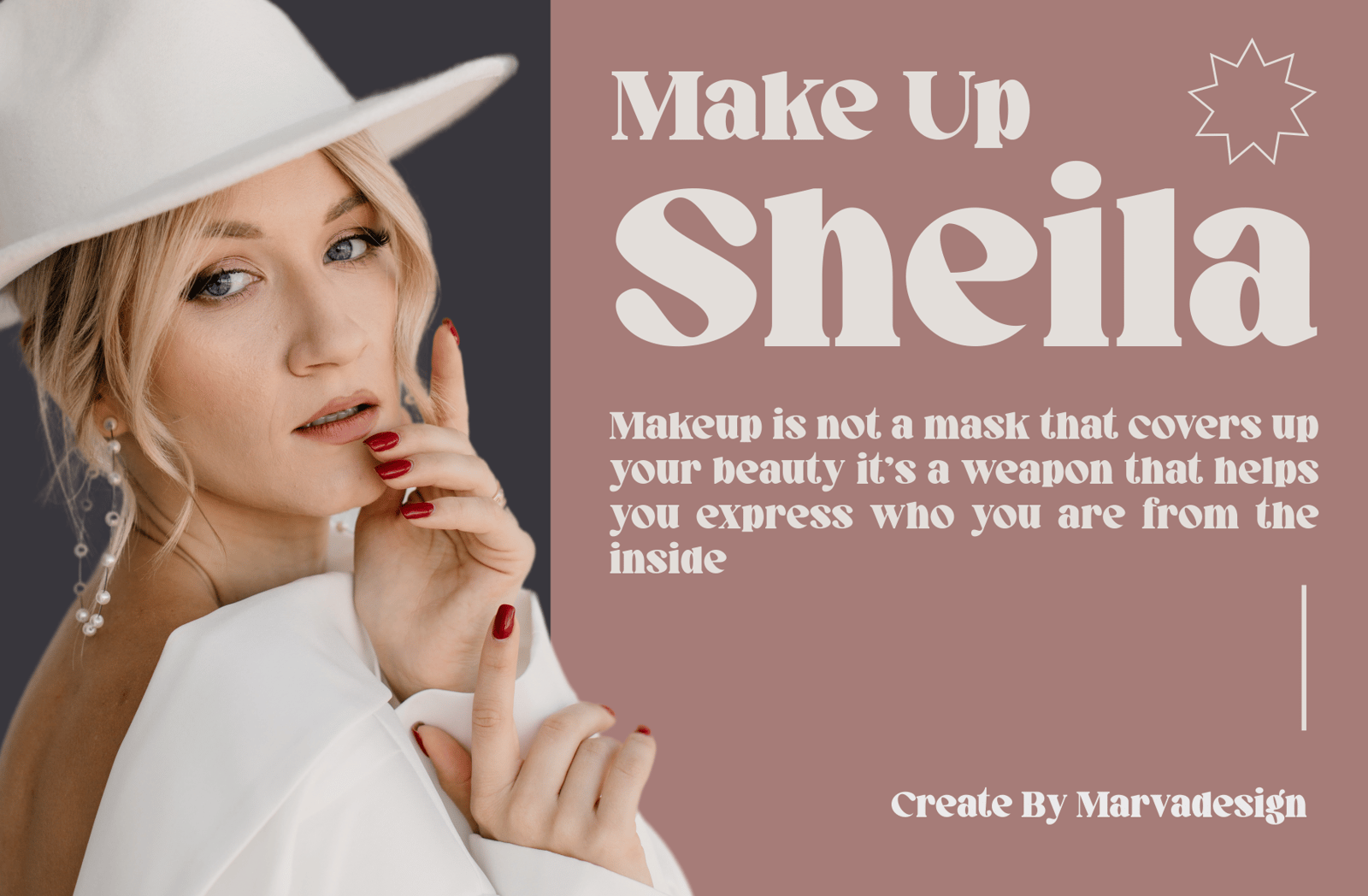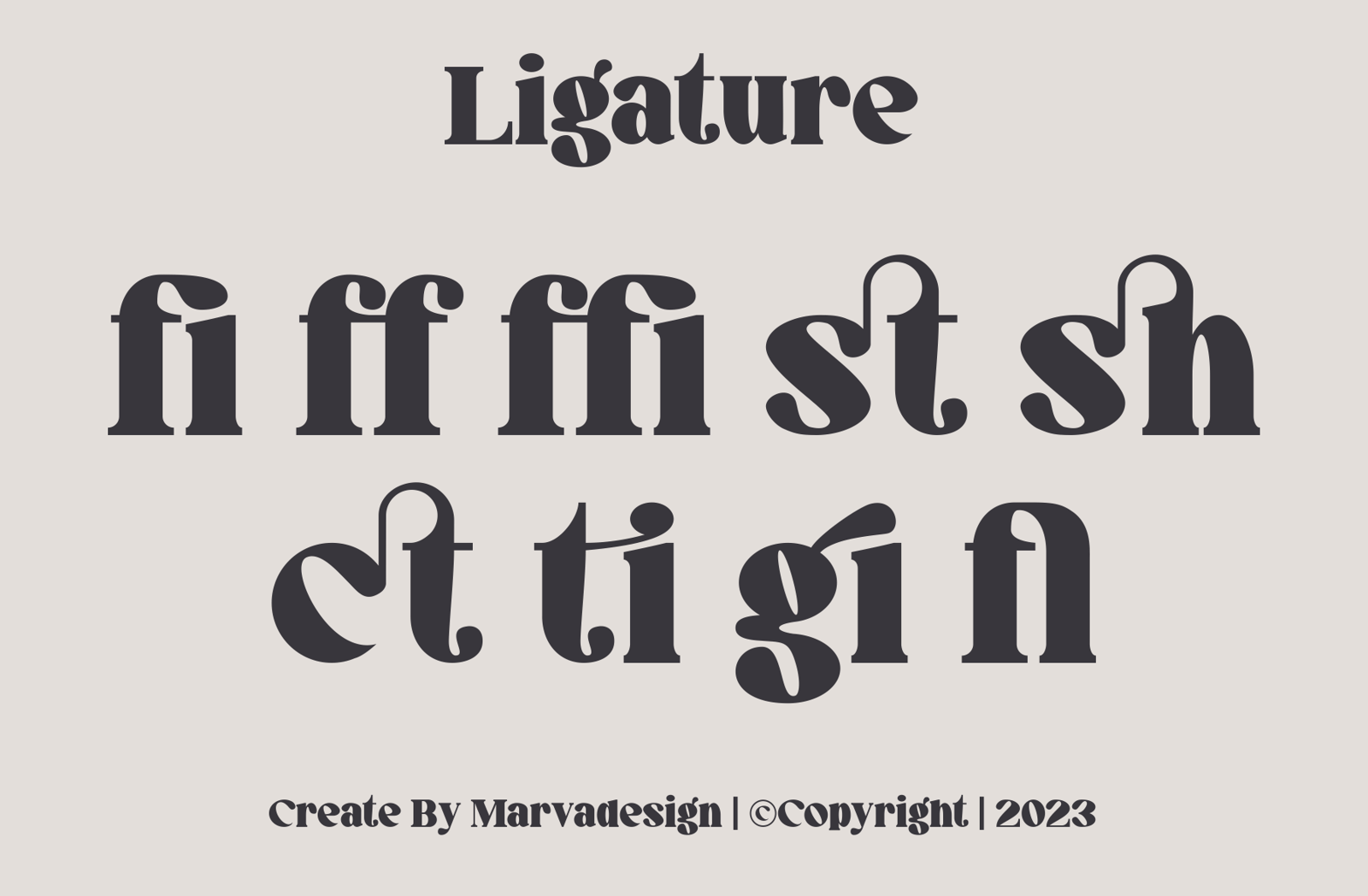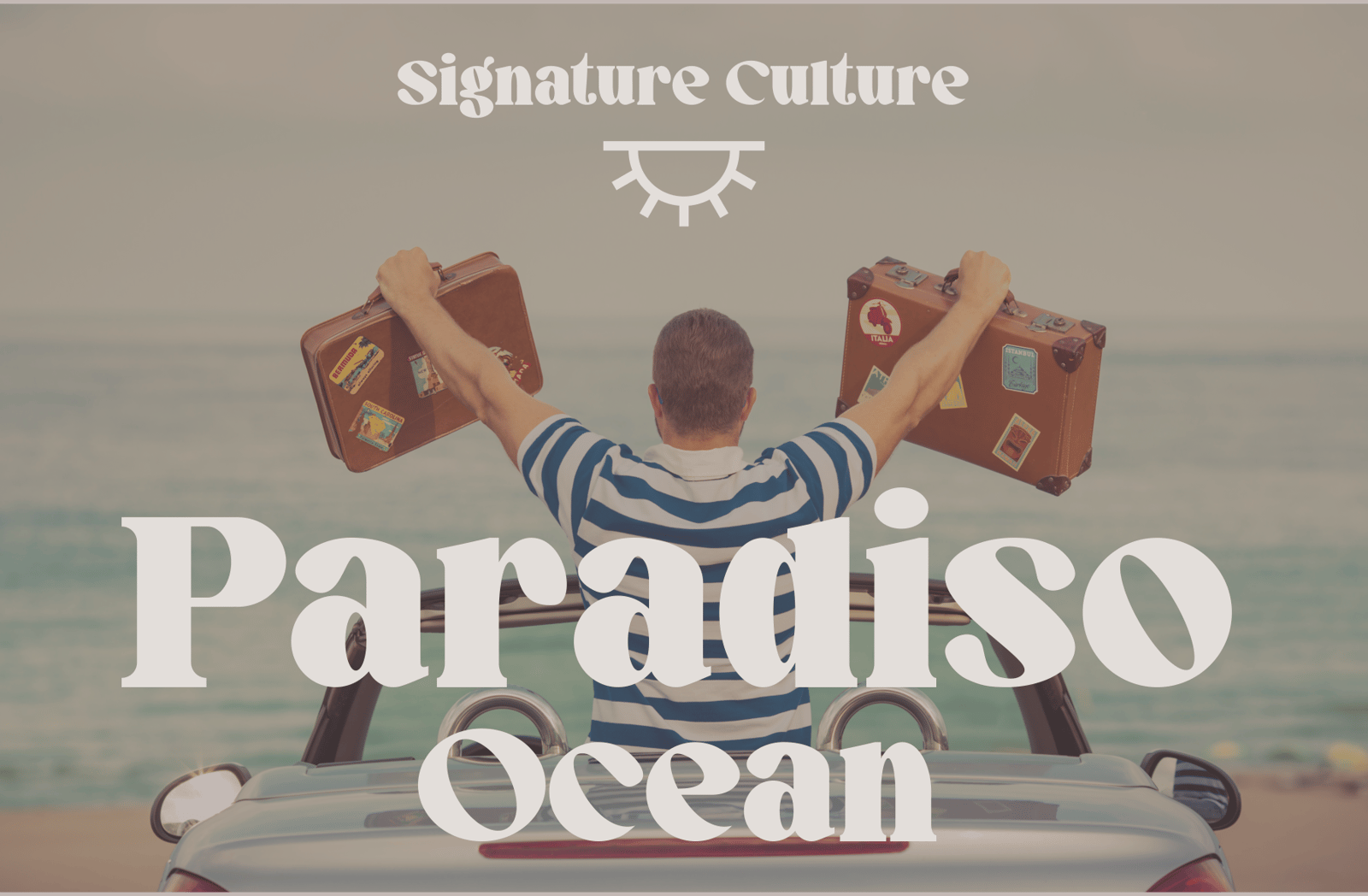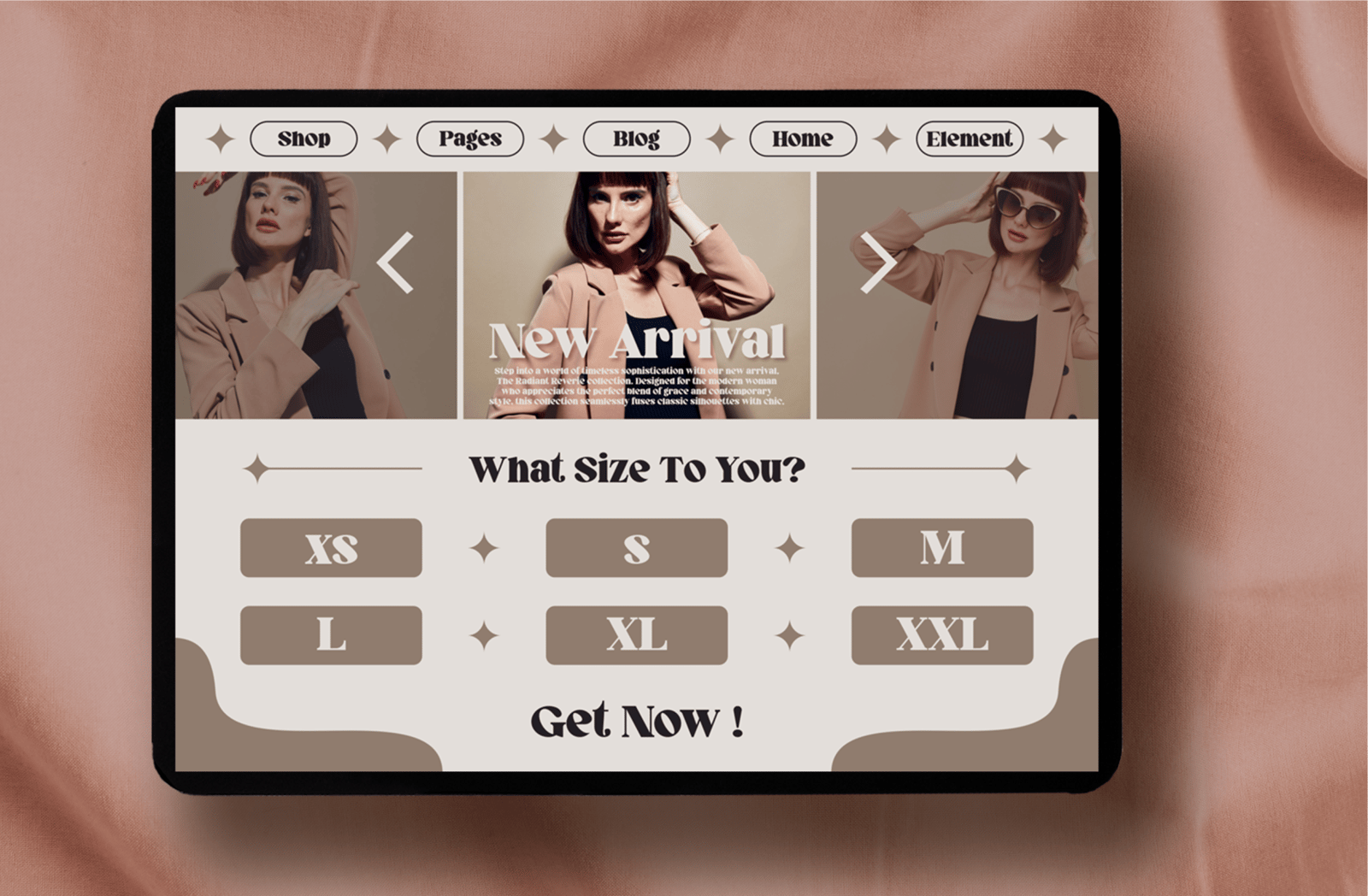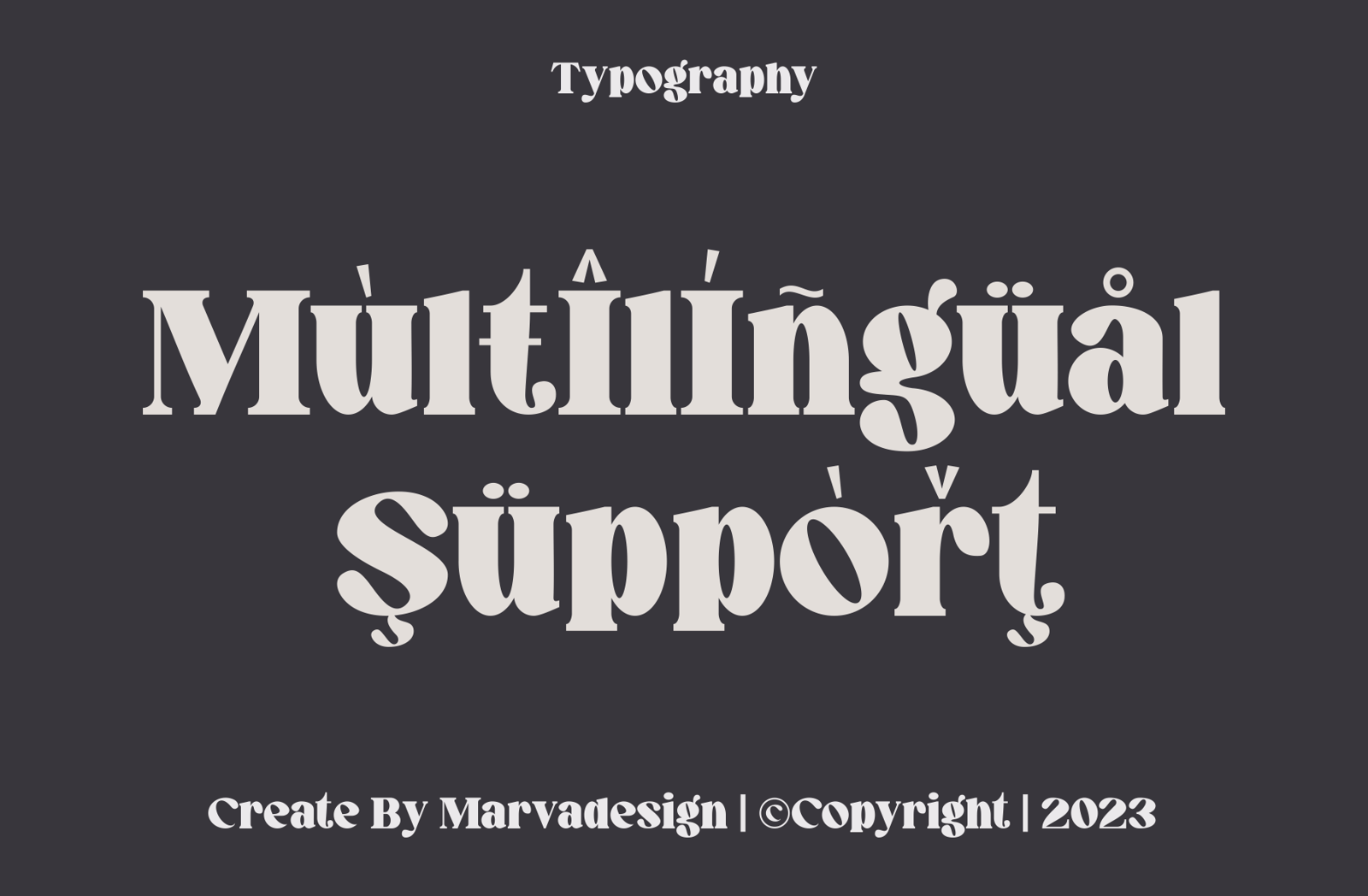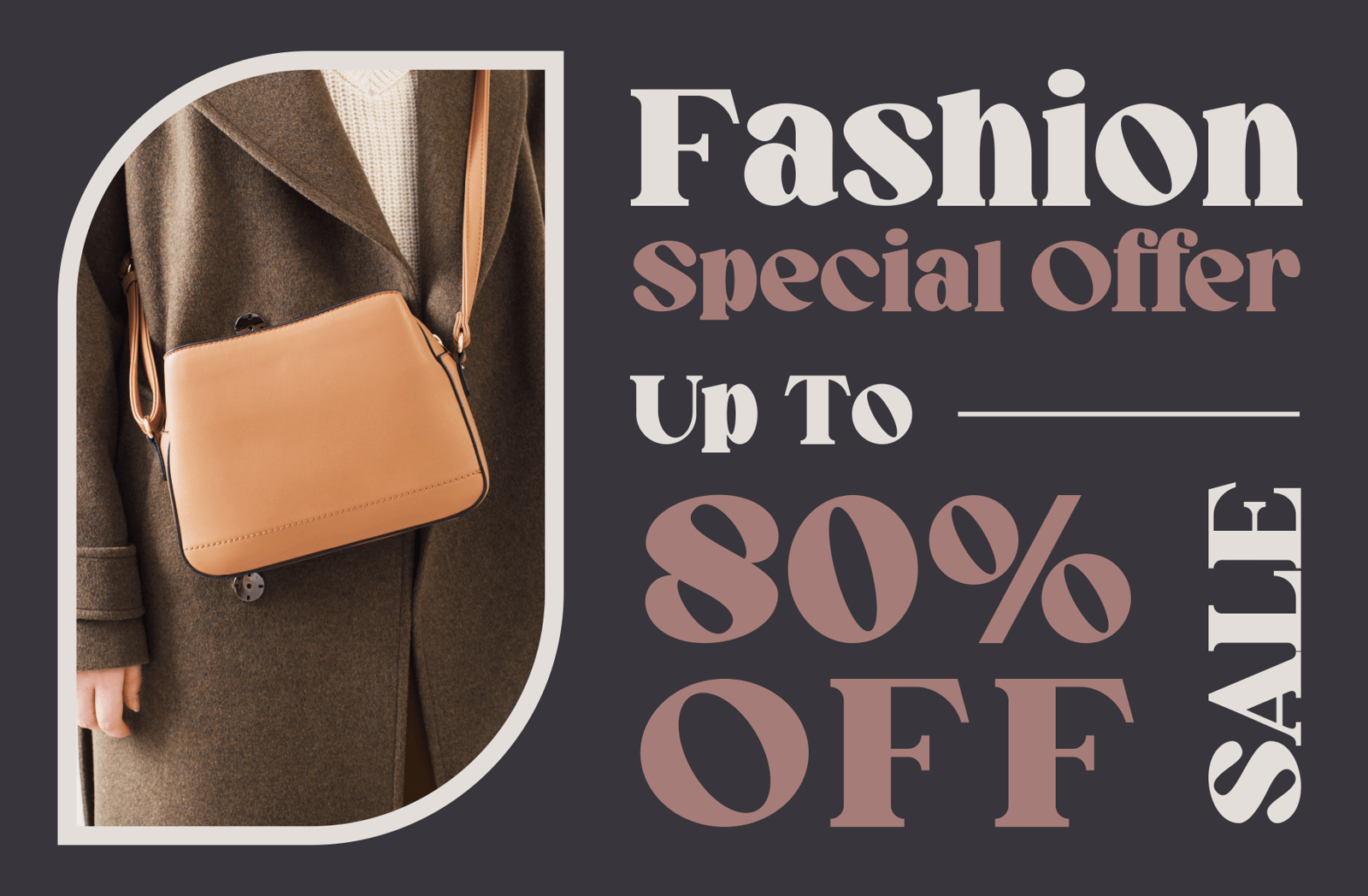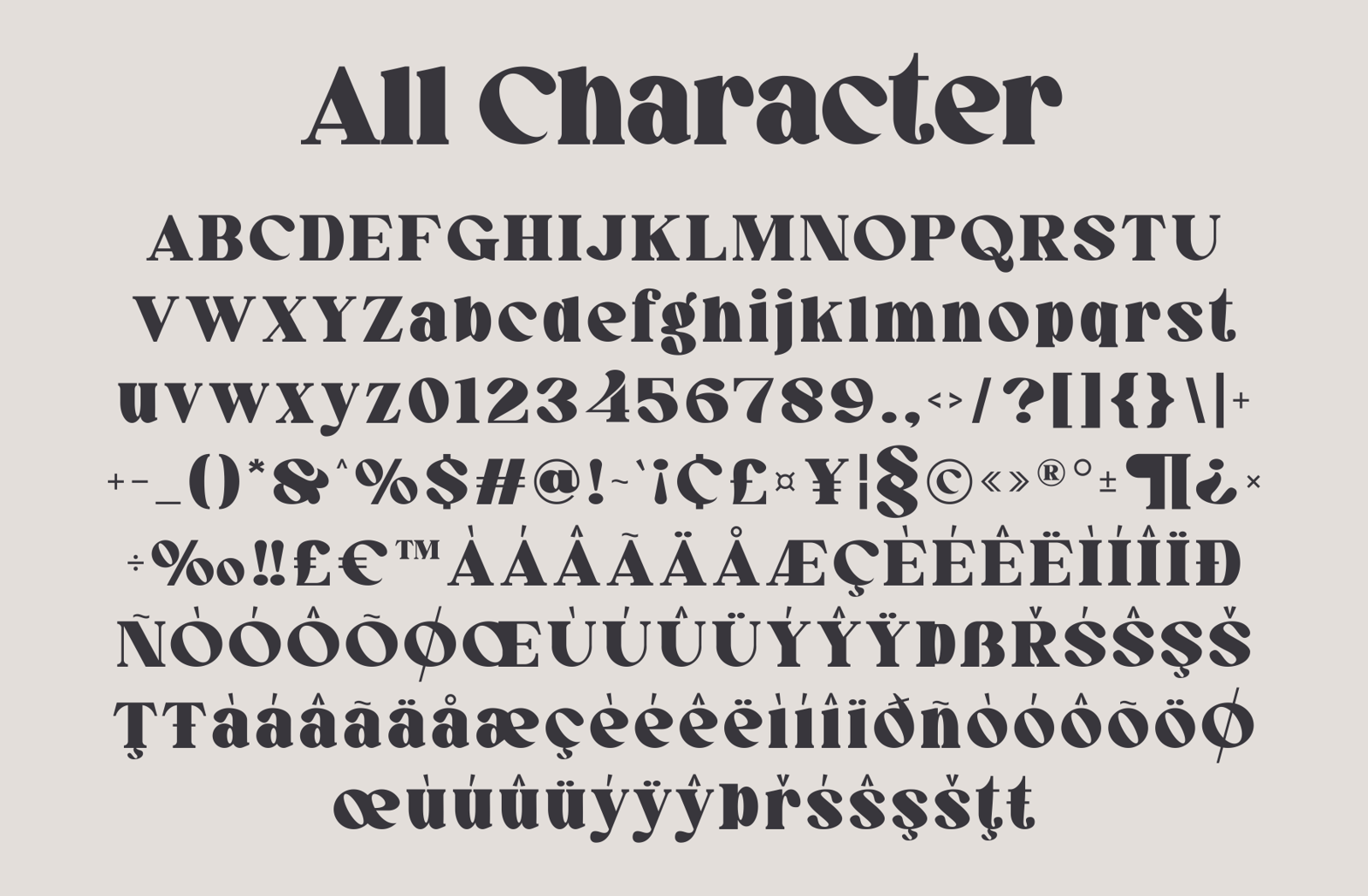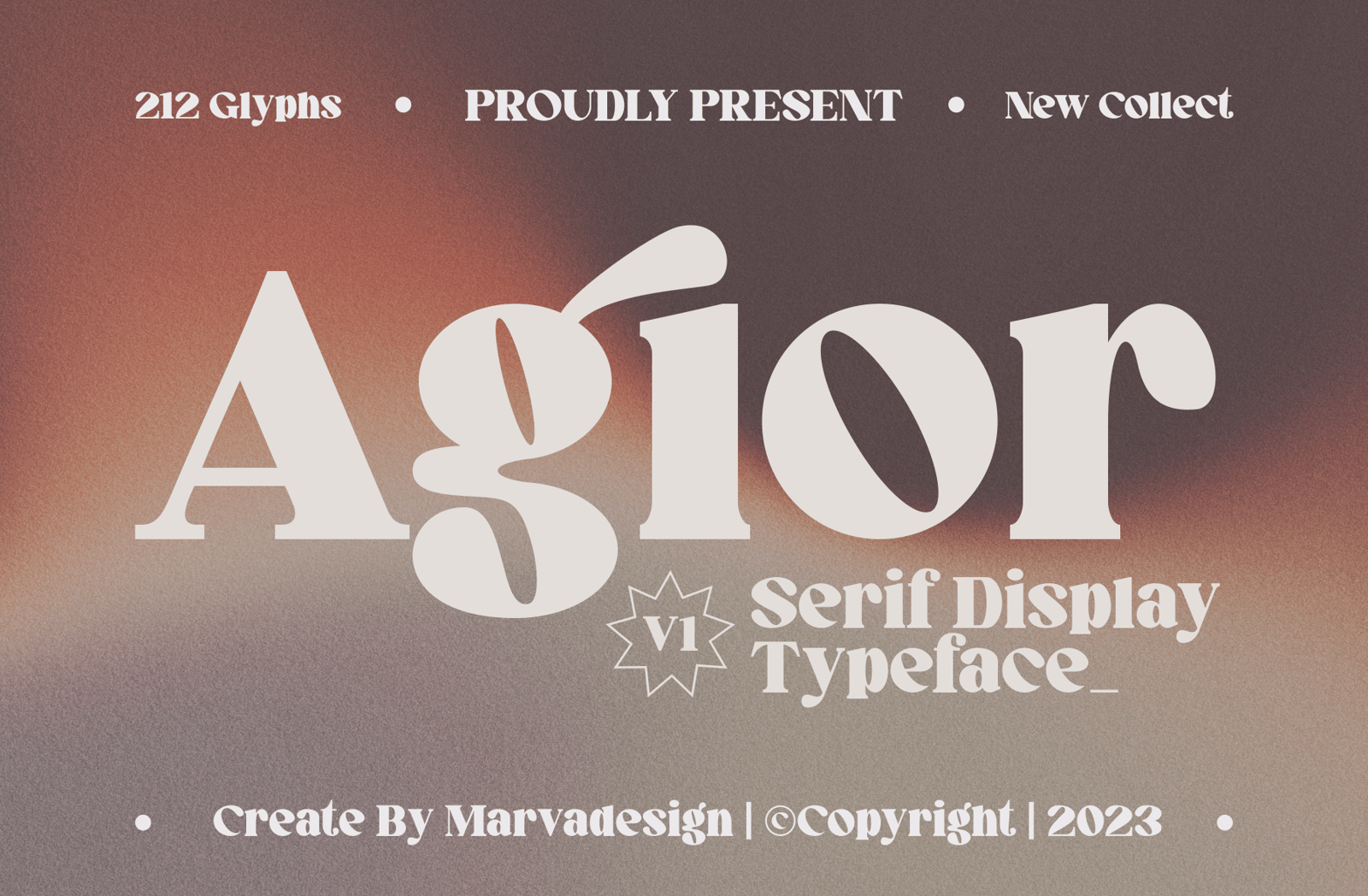
Agior Font
Introducing our new product **Agior Font** - Elegant Serif Font
**Agior Font** - Elegant Serif Font authentic display font. The font is suitable for any branding project like logo, Template Design, Product and many more. outstanding in a wide range of contexts.
* Uppercase
* Lowercase
* Multilingual
* Ligature